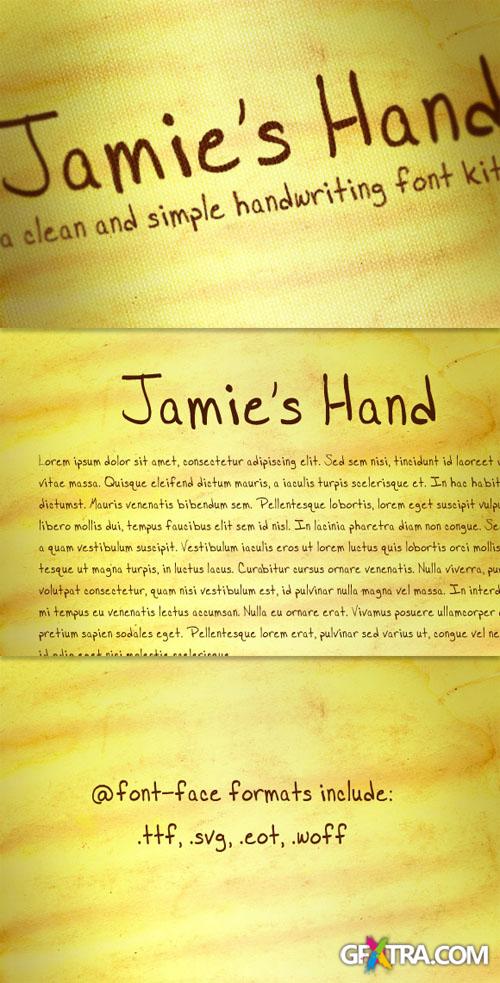
WeGraphics - Jamie?s Hand Font Kit
This handwriting font is very clean, simple and easy to read. A complete @font-face kit is included so that you may use this font on your next website design.